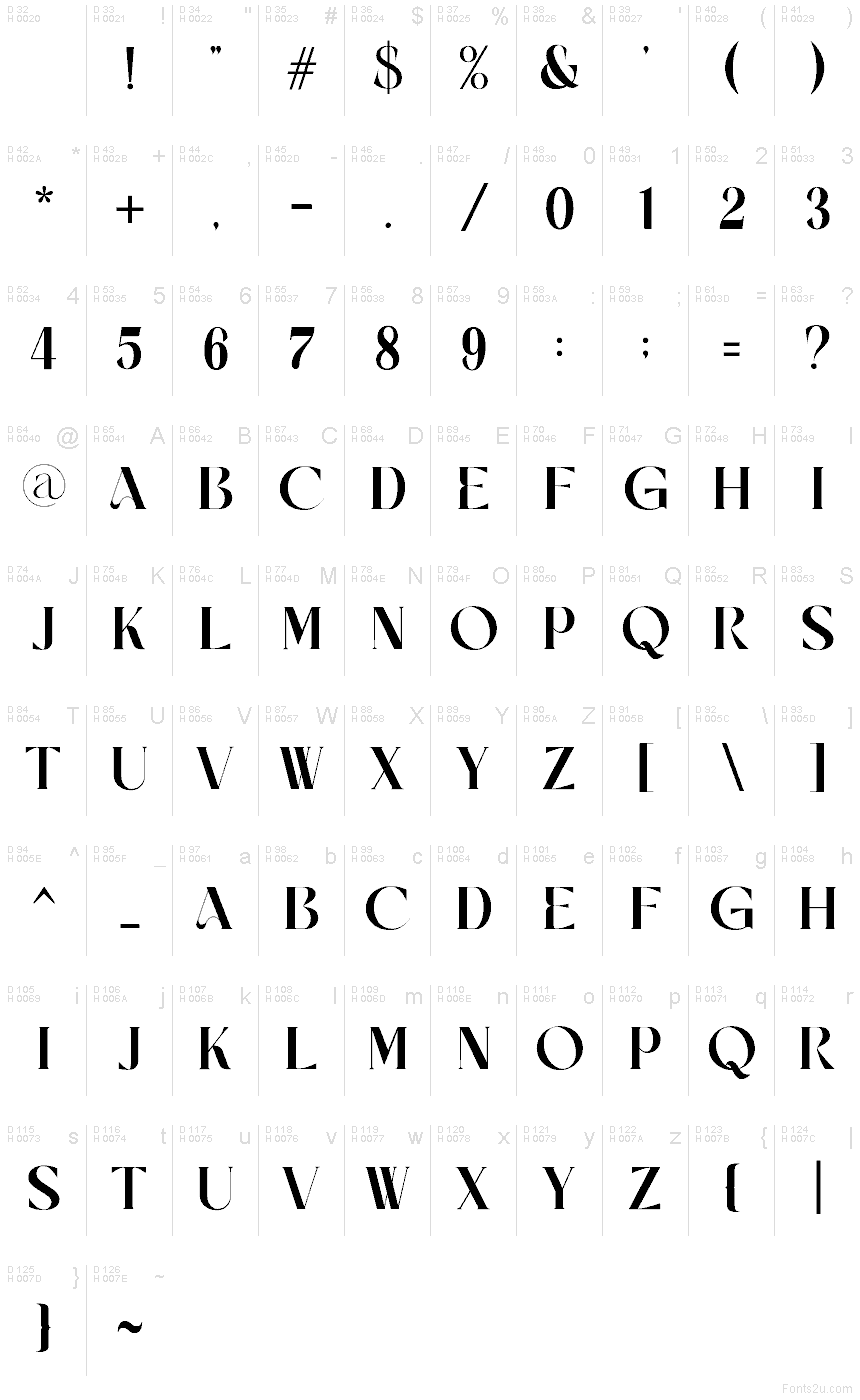
Macker
Macker font by Graphicxell is a free decorative serif font. It’s all drama: razor-thin hairlines carve into bold strokes, while swooping curves and sharp wedge endings create a sleek, theatrical rhythm. The letters feel sculpted and glossy, like ink pulled with a fine brush, giving headlines a refined snap without getting fussy.
Using Macker, your work instantly leans luxe—think fashion headlines, magazine covers, boutique logos, perfume and beauty packaging, event posters, and editorial pull quotes. The tight spacing and elegant cuts hold attention at large sizes and add a subtle shimmer in shorter lines. Pair this free font with a restrained sans to handle body text and let Macker do the show-stopping work up top.